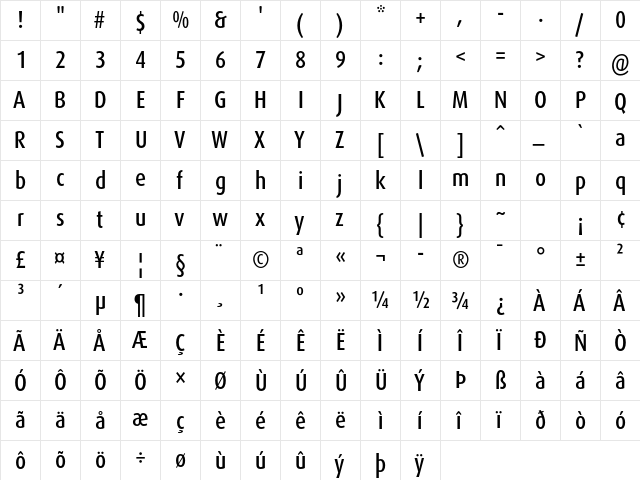
DaxOT CondMedium
| Foundry | FSI Fonts und Software GmbH |
| Designer | Hans Reichel |
Design Context for DaxOT Typeface
DaxOT takes a measured approach to typography — its balanced proportions and neutral character make it a reliable workhorse for both digital and print work. Its narrow stance lets it pack a punch even in space-constrained designs.